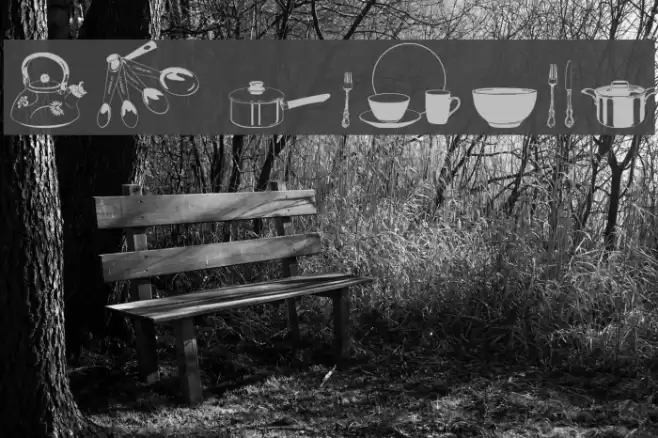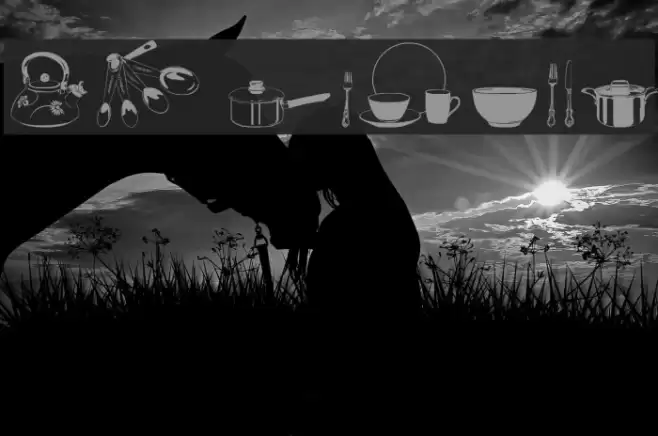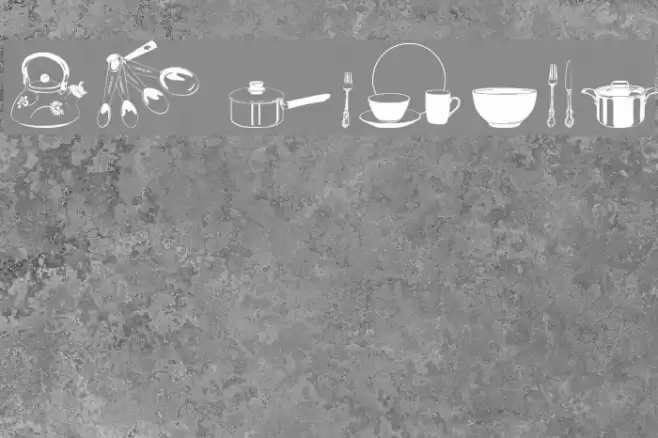
DJ Kitchen Font
DJ Kitchen Description
A decorative dingbat font composed entirely of detailed kitchen and cooking-related icons, including utensils, appliances, cookware, and tableware, each glyph representing a unique kitchen item in a bold, black-and-white illustrative style.
A kitchen-themed dingbat font featuring various cooking and dining icons from Dingbats fonts.
- Proposed Projects: Recipe books, cooking blogs, restaurant menus, culinary event posters, educational materials for children.
- Overall Style: Decorative, Thematic, Playful
- Use Case: Icons, Decorative elements, Themed graphics